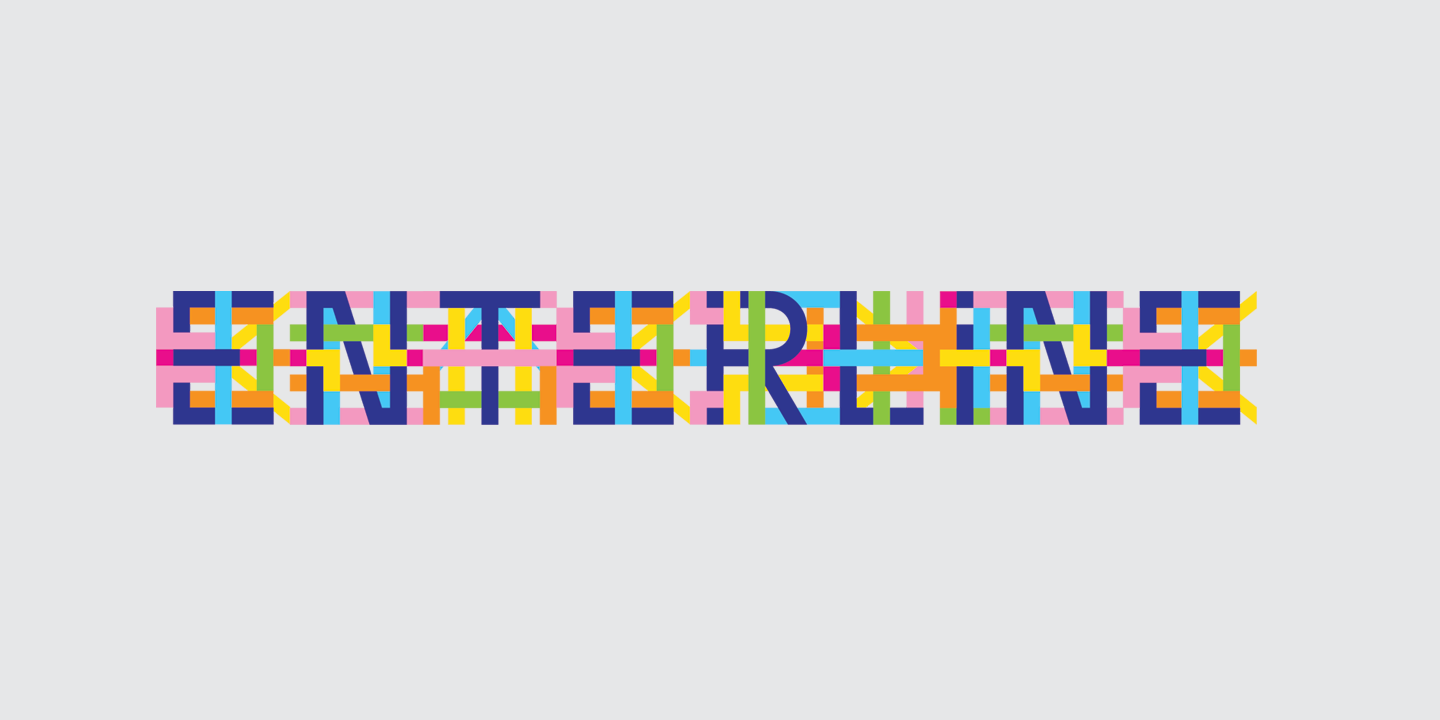
Enterline Font is perfect for tech company branding, modern user interfaces, digital applications, software logos, coding documentation, contemporary signage, innovative product packaging, and cutting-edge marketing campaigns.
This font is exciting because it embodies the precision and innovation of digital technology with sleek futuristic appeal. Enterline Font features sharp, structured letterforms with technical precision that capture the essence of modern programming and digital innovation, making it ideal for projects that require technological sophistication and forward-thinking design.
The Enterline Font family includes regular, light, medium, bold, and mono variants, along with technical alternates and coding-inspired ligatures that enhance its digital character. Each weight maintains the font's technological aesthetic while providing different levels of technical precision for various tech and software design applications.
Whether you're developing innovative tech brands, creating user-friendly software interfaces, or designing futuristic marketing materials, Enterline Font Free Download delivers exceptional technical appeal and digital sophistication. Its distinctive tech-inspired style makes it an excellent choice for designers seeking to add modern innovation and technological credibility to their projects. The font's versatility extends from mobile app interfaces to tech conference signage, ensuring consistent performance across all digital environments. With its precisely crafted letterforms and technical proportions, this typeface provides professional results that connect with tech-savvy audiences and establish cutting-edge brand presence with its unmistakable digital character and innovative technological appeal.